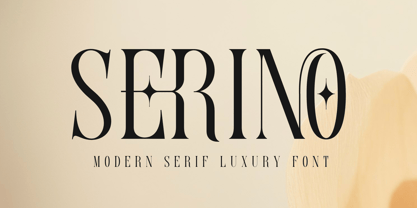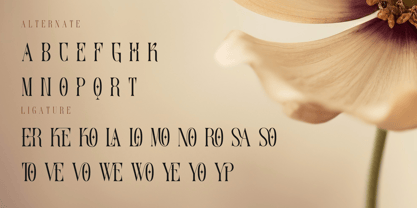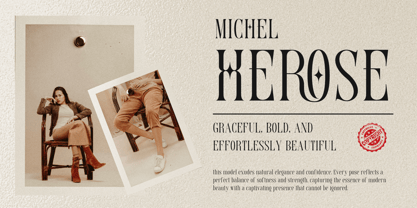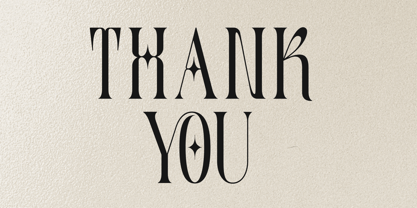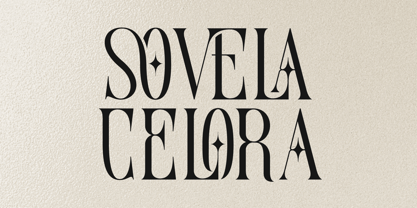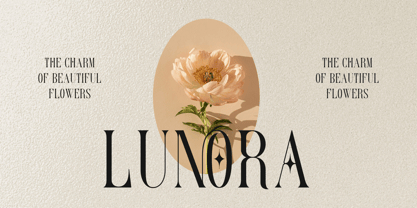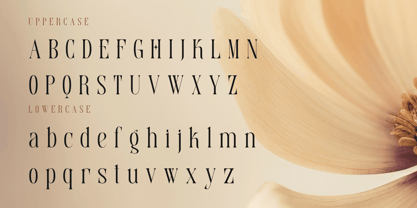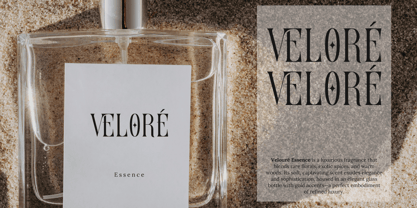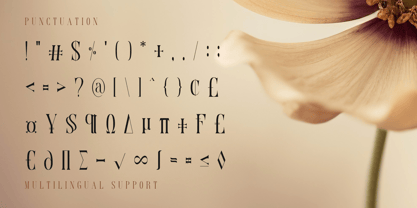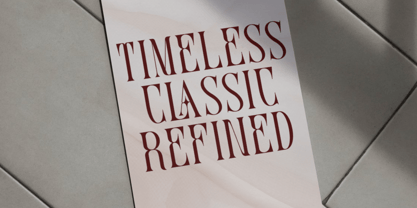
Serino
by Liartgraphic
The Serino Font Family was designed by Ali Sifak Muftari and published by Liartgraphic. Serino contains 1 styles.
Serino is a modern luxury serif font that blends elegance with simplicity. Designed with a clean and precise style, Serino offers a luxurious and professional aesthetic. This font comes with ligatures and alternates, allowing for creative flexibility across various applications, such as:
• Premium branding
• Editorial design
• Artistic posters
• Exclusive packaging
With its clean and elegant characteristics, Serino is perfect for designs that aim to exude sophistication and professionalism.
• Features: Multilingual Support, Ligatures, Alternates
• Uses: Branding, Logos, Packaging, Editorial
Use Serino to create timeless and captivating designs!